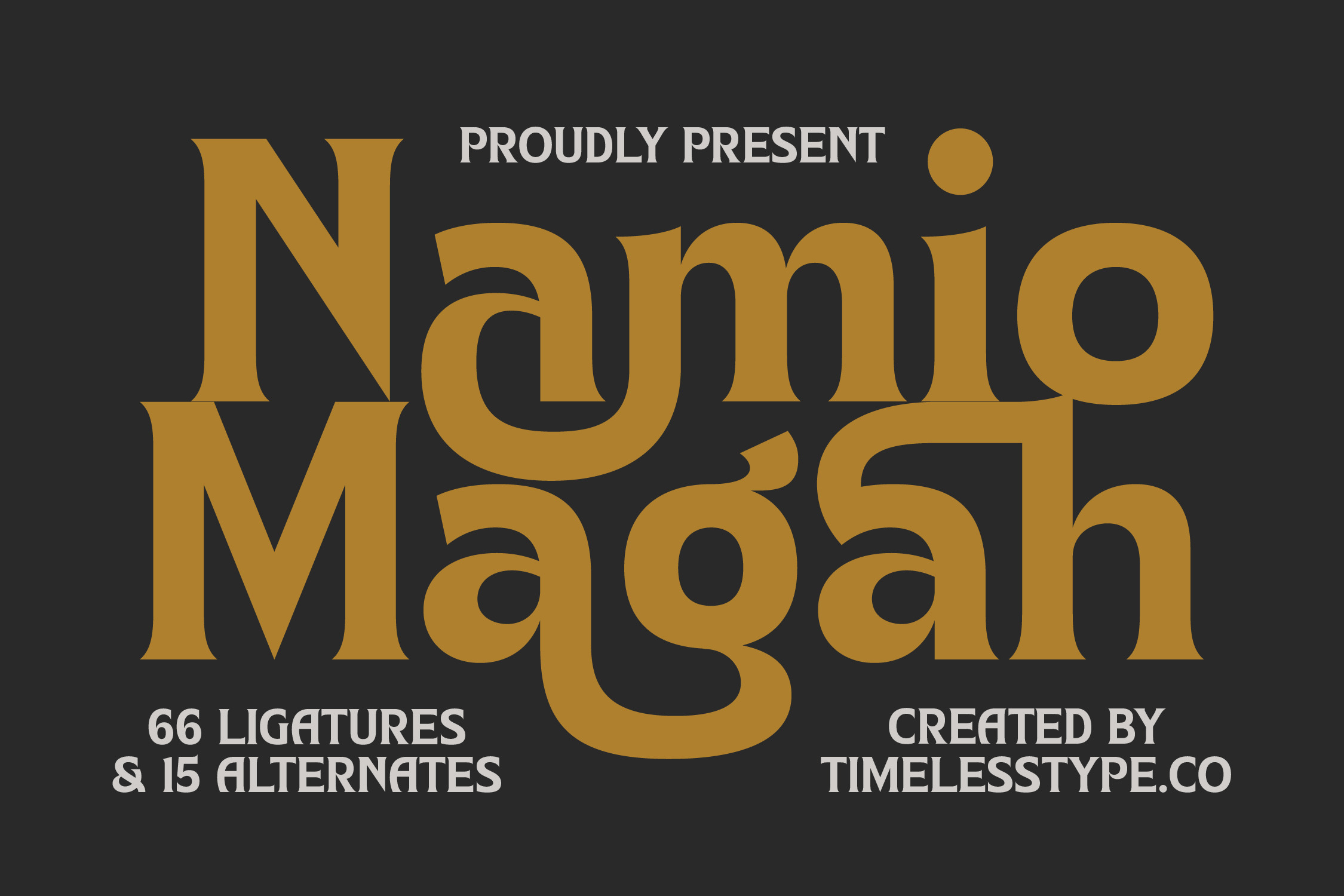
Namio Magah Modern Serif Font
Elevate your creative vision with the timeless elegance of Namio Magah, a typeface designed to command attention and inspire awe. This font strikes a perfect balance between classic sophistication and contemporary flair, making every word a work of art.
Inspired by the golden era of editorial design and the refined aesthetics of high-fashion magazines, this typeface captures a spirit of effortless luxury. It draws from a rich heritage of letterforms while introducing a unique, flowing rhythm that feels both nostalgic and forward-thinking.
As a modern serif display, this typeface is built for luxury typography and maximum branding impact. Its high-contrast serif strokes and sharp terminals create an editorial font that speaks with authority and grace, ensuring your message is delivered with unparalleled style.
Riding the wave of the modern serif trend, this collection meets the demand for editorial display fonts that offer more than just legibility. In an era of character-driven typography, it provides the unique personality needed to stand out in a saturated digital landscape.
Perfect for high-end logo design and comprehensive branding projects, this typeface excels in editorial layouts and luxury packaging. Whether you are designing for a boutique wedding or a global fashion house, it provides the versatility to scale across various mediums beautifully.
This comprehensive set features 66 ligatures and 15 alternates to help you customize every headline. With full multilingual support and a wide range of international characters, plus elegant swashes, it is a robust tool for global designers seeking professional results.
- Ligature 66 Alternate 15